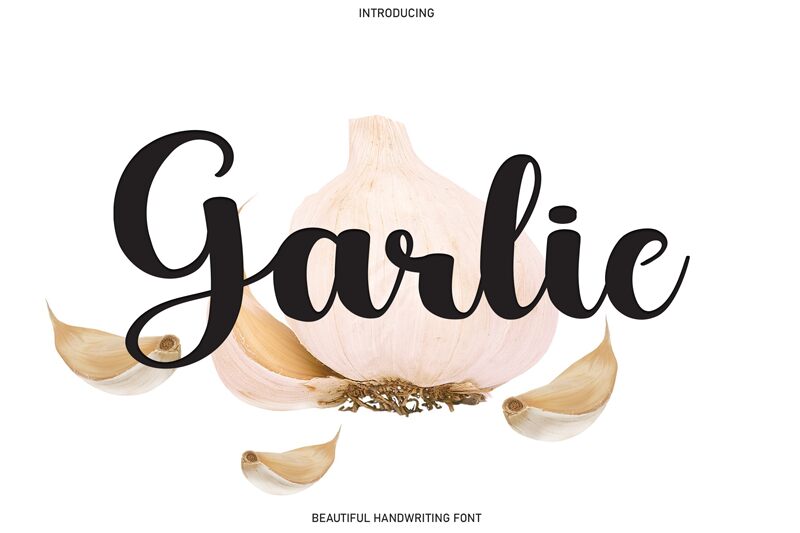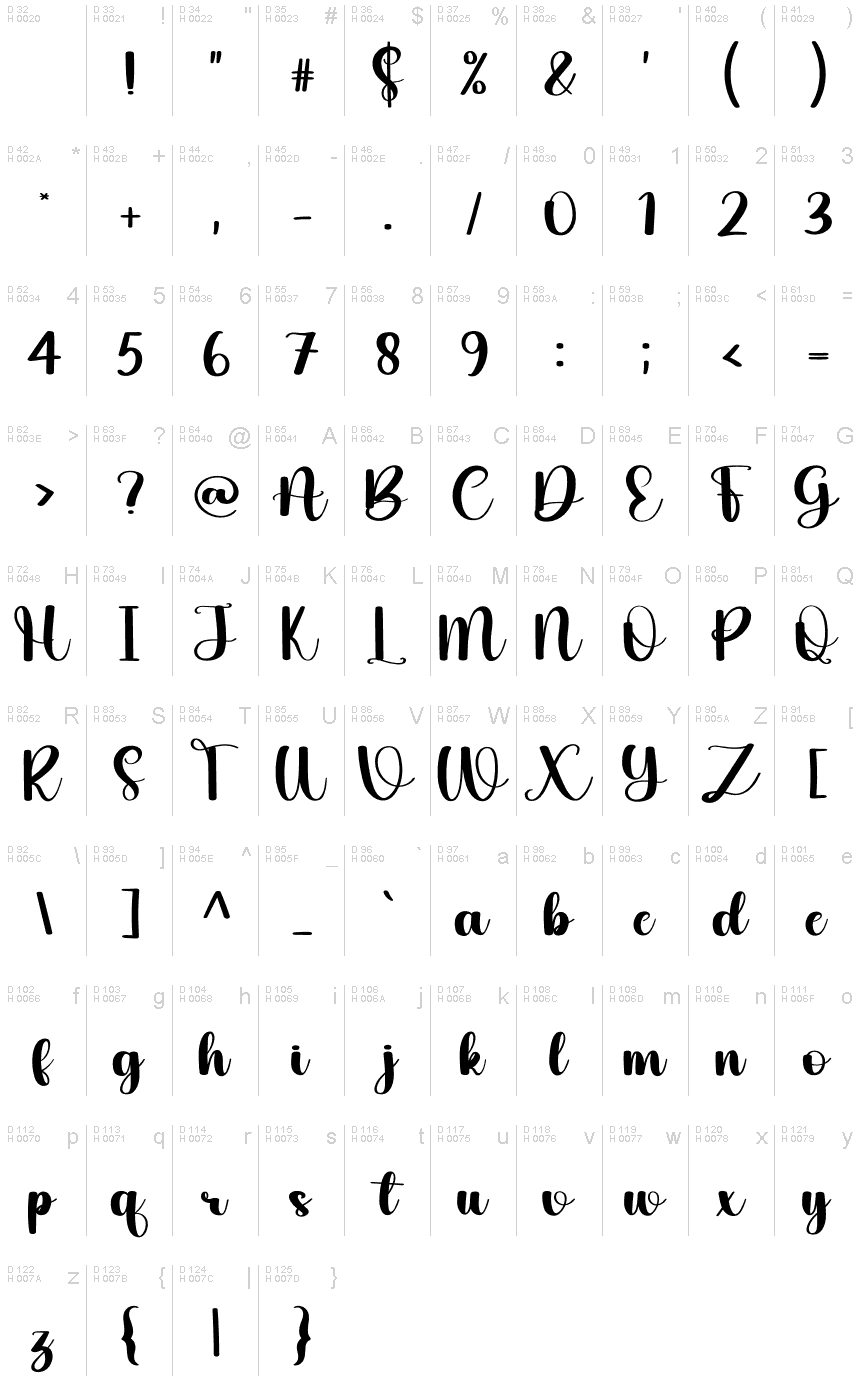
Garlic, crafted by the talented Harlek Studio, is a bold and captivating calligraphy font that will add elegance and sophistication to any project.
With its fluid strokes and graceful curves, Garlic is perfect for wedding invitations, fine dining menus, and luxury branding. Its rich texture and strong presence make it suitable for book covers that demand attention, while its versatility can effortlessly enhance packaging designs. Whether used in logos or editorial layouts, Garlic's bold weight commands attention and leaves a lasting impression. Elevate your designs with the grace of Garlic's calligraphic artistry.